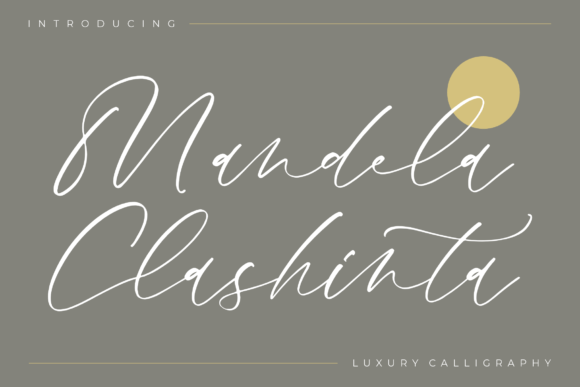
Unleash the Elegance: Mandela Clashinta - A Dance of Luxury in Every Letter
Immerse yourself in an extraordinary journey of visual artistry with Mandela Clashinta, a script font born from the fusion of elegance and modernity. Crafted by the visionary minds at Storytype Studio, this masterpiece beckons you to elevate your designs with its striking presence and timeless appeal.
Indulge in the luxurious embrace of Mandela Clashinta, a font that whispers sophistication and exudes a sense of grandeur. Its meticulously crafted curves and intricate details evoke a symphony of elegance, transforming your words into works of art. Whether gracing the pages of a captivating book, adorning the title of a blockbuster movie, or dancing across the fabric of a haute couture garment, Mandela Clashinta commands attention effortlessly.
Step into the realm of fashion and let Mandela Clashinta be your muse. Its unique style and modern flair breathe life into your designs, turning ordinary creations into extraordinary expressions of individuality. Unleash your creativity and watch as your garments, accessories, and branding materials radiate with an unmatched allure.
Mandela Clashinta is more than just a font; it's an invitation to embark on a creative odyssey, where imagination knows no bounds. Its versatility extends beyond the realm of fashion, seamlessly adapting to the world of typography, lettering, and beyond. Whether you seek to create eye-catching quotes, design captivating logos, or simply add a touch of elegance to your personal projects, Mandela Clashinta stands ready to elevate your vision.
Immerse yourself in the world of Mandela Clashinta and let your creative spirit soar. Discover the endless possibilities that await you as you unlock the power of this exquisite font. It's time to redefine luxury and redefine artistry. Mandela Clashinta awaits your touch, ready to transform your designs into masterpieces that captivate and inspire.